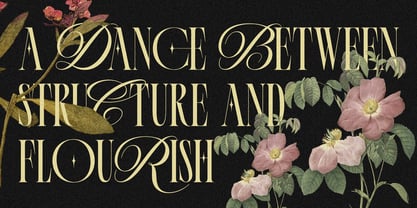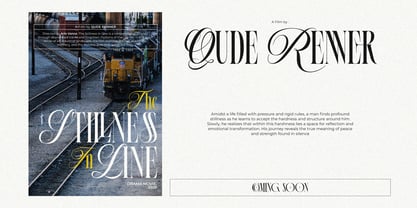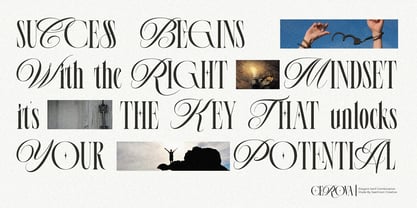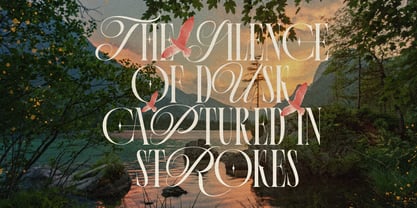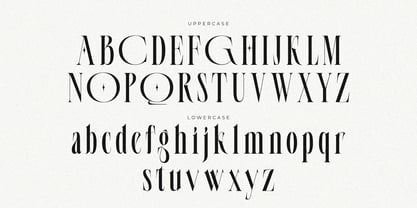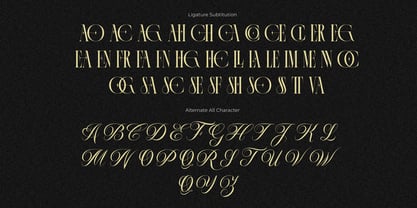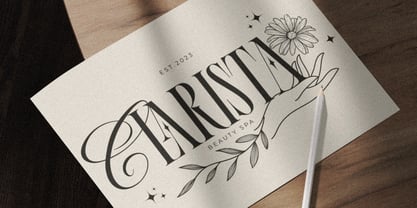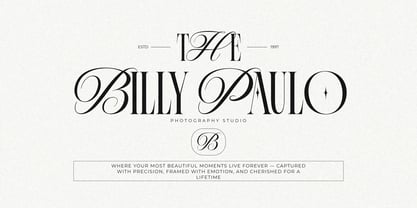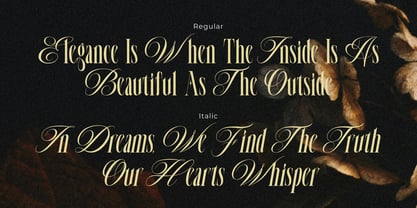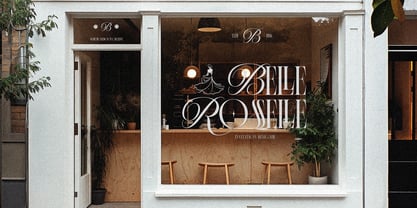
Cerova
The Cerova Font Family was designed by Sapto Susilo and published by Saemoon Creative. Cerova contains 2 styles and family package options. More about this family
Cerova is a luxurious serif font designed with elegant touches through its full script-style capital alternates. Each uppercase letter features graceful and artistic curves, giving it a distinctive character—making Cerova the perfect choice for logos and high-end product branding.
The blend of classic serif structure with soft script details gives Cerova a refined, sophisticated look. It's ideal for fashion labels, cosmetics, jewelry, and lifestyle products that aim to communicate elegance and exclusivity.
Cerova also includes a beautifully crafted Italic version, offering even more versatility for expressive layouts, headlines, or refined typographic contrast in branding materials.
Key Features:
• Elegant full-script capital letter alternates
• Classic serif style with a modern, feminine twist
• Beautiful ligatures and decorative characters
• Includes Italic version for added stylistic flexibility
• Perfect for logos, product branding, packaging, and premium promotional designs
With Cerova, every letter becomes a visual identity that is strong, graceful, and unforgettable. Make a lasting impression with timeless luxury.